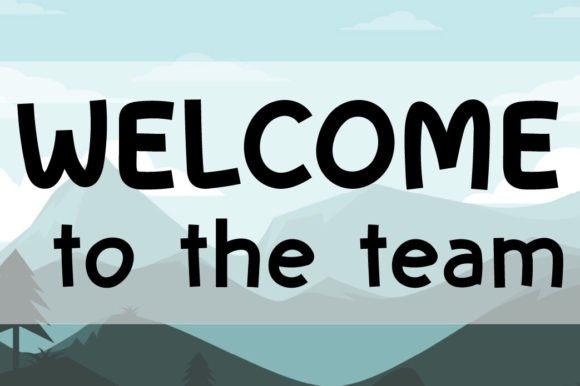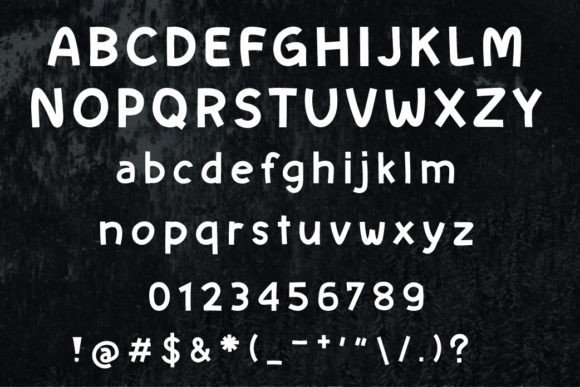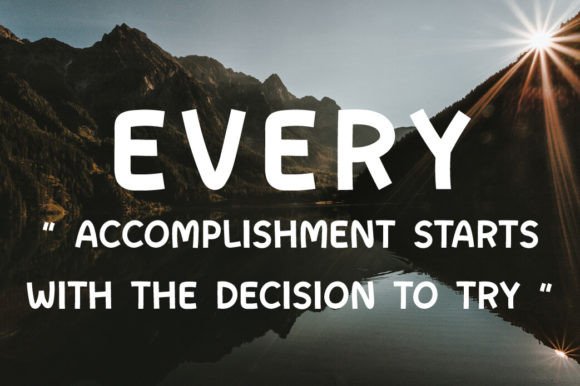
Introducing Block 14 Font: The Ultimate Sans Serif for Creative Projects
Are you on the hunt for a font that adds a dash of fun and creativity to your designs? Look no further than Block 14 Font! This casual and creative sans serif font is perfect for a wide range of projects, from posters and T-shirt designs to school and teacher decorations, digital art, and more. In this article, we’ll dive into the features and benefits of Block 14 Font, and explore how it can elevate your designs and make your message stand out.
The Characteristics of Block 14 Font
Block 14 Font is a sans serif font, which means it doesn’t have the small lines or flourishes at the ends of the letters. This gives it a clean and modern look that’s perfect for designs where you want the text to be the focus. The font has a casual and playful feel, making it ideal for projects where you want to add a bit of personality and whimsy.
What Makes Block 14 Font So Versatile?
One of the things that sets Block 14 Font apart is its versatility. It’s a font that can be used in a wide range of contexts, from formal to informal, and from digital to print. Here are just a few examples of how you can use Block 14 Font:
- Posters and Flyers: Block 14 Font is perfect for creating eye-catching posters and flyers. Its bold and playful design makes it easy to read, even from a distance.
- T-Shirt Design: If you’re looking for a font to use on T-shirts, Block 14 Font is a great choice. It’s fun, casual, and easy to read, making it perfect for designs that need to be both stylish and legible.
- School and Teacher Decorations: Block 14 Font is also great for creating decorations for schools and teachers. You can use it to create bulletin board headers, classroom labels, and more.
- Digital Art: If you’re a digital artist, Block 14 Font can be a great addition to your toolkit. You can use it to add text to your artwork, create digital scrapbook pages, and more.
How Block 14 Font Can Elevate Your Designs
So why choose Block 14 Font for your designs? Here are just a few reasons:
- Grabs Attention: Block 14 Font is designed to grab attention. Its bold and playful design makes it hard to ignore, which is perfect for designs where you want to make a statement.
- Adds Personality: Block 14 Font has a lot of personality, which makes it perfect for designs where you want to add a bit of whimsy and fun.
- Easy to Read: Despite its bold design, Block 14 Font is easy to read, even in small sizes. This makes it perfect for designs where you need to include a lot of text.
Tips for Using Block 14 Font
Here are a few tips for getting the most out of Block 14 Font:
- Use it Boldly: Block 14 Font is designed to be used boldly, so don’t be afraid to experiment with different sizes and colors.
- Mix and Match: Block 14 Font can be paired with a wide range of other fonts, so feel free to experiment with different combinations.
- Have Fun: Most importantly, have fun with Block 14 Font! It’s a font that’s designed to add a bit of whimsy and personality to your designs, so don’t be afraid to get creative.
In conclusion, Block 14 Font is a fun, casual, and creative sans serif font that’s perfect for a wide range of projects. Its bold and playful design makes it easy to read and adds a bit of personality to your designs. Whether you’re a designer, crafter, or teacher, Block 14 Font is a great addition to your toolkit. So why not give it a try and see how it can elevate your designs?